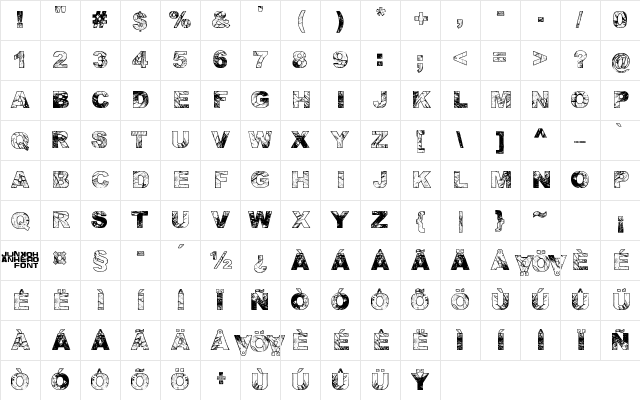
Adieresis, Odieresis & Aring Regular Free Font
Adieresis, Odieresis & Aring Regular
Designer: junkohanhero
Design Context for Adieresis, Odieresis & Aring
Adieresis, Odieresis & Aring is a composed and adaptable typeface that performs quietly and consistently across a wide range of design contexts.